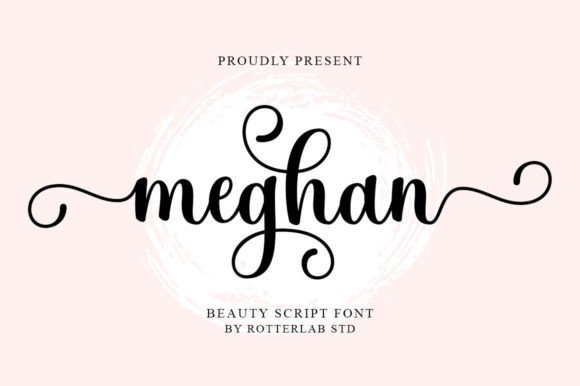
Initiate a mystical journey into the world of typography with Meghan Script, a captivating script font family that dances across your designs with grace and elegance. Crafted by the skilled hands of rotterlabstudio, Meghan Script is a visual masterpiece that will transform your creative visions into captivating realities.
Embark on an enchanting adventure with Meghan Script, a font family designed to capture the essence of handwritten calligraphy. Each stroke and curve is meticulously crafted, flowing seamlessly to create a symphony of visual delight. Whether you're designing wedding invitations, greeting cards, branding materials, or posters, Meghan Script will add a touch of sophistication and charm that will leave a lasting impression on your audience.
Immerse yourself in the versatility of Meghan Script, a font family that adapts effortlessly to a myriad of design projects. Its delicate swashes and stylistic alternatives provide endless creative possibilities, allowing you to craft designs that exude personality and charm. Unleash your imagination and witness the visual magic unfold as Meghan Script weaves its enchanting spell on your creations.
Meghan Script's multilingual capabilities transcend borders, making it a font family that speaks to the world. With international language and symbol support, your designs will resonate with audiences across cultures and regions. Craft messages that embrace diversity and inclusivity, letting Meghan Script carry your words to the hearts of people from all walks of life.
Discover the power of OpenType features with Meghan Script, a font family that unlocks a world of typographic possibilities. Access a treasure trove of swashes, stylistic sets, and contextual alternatives, all seamlessly integrated into Adobe Illustrator, Adobe InDesign, Adobe Photoshop, Corel Draw X version, and Microsoft Word. Unleash your creativity and explore the depths of design freedom as you manipulate characters and create stunning typographic compositions.